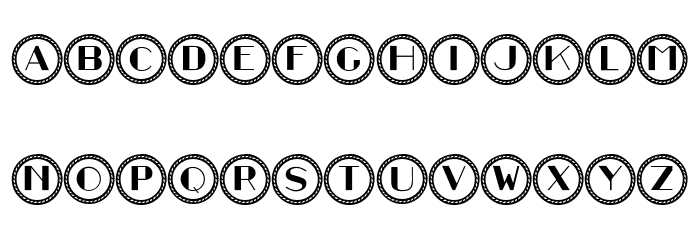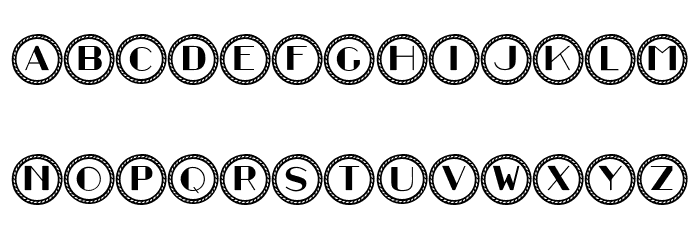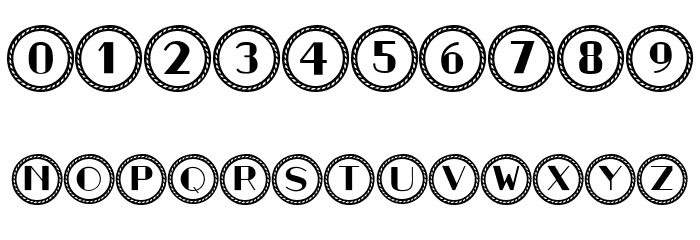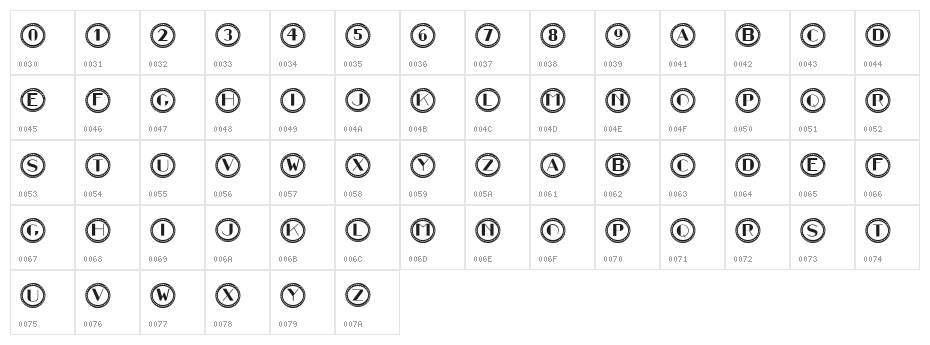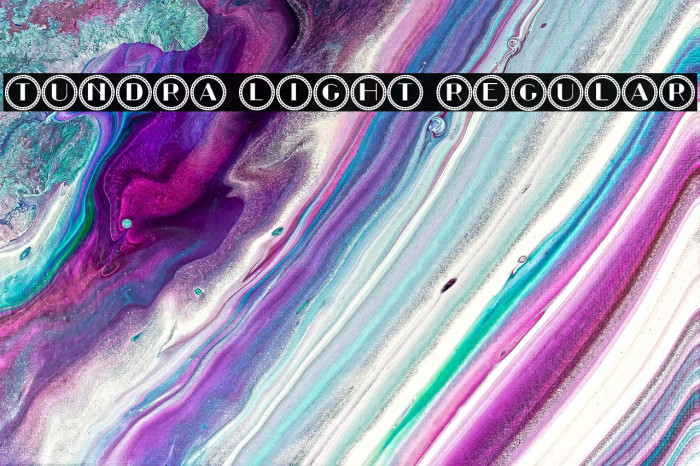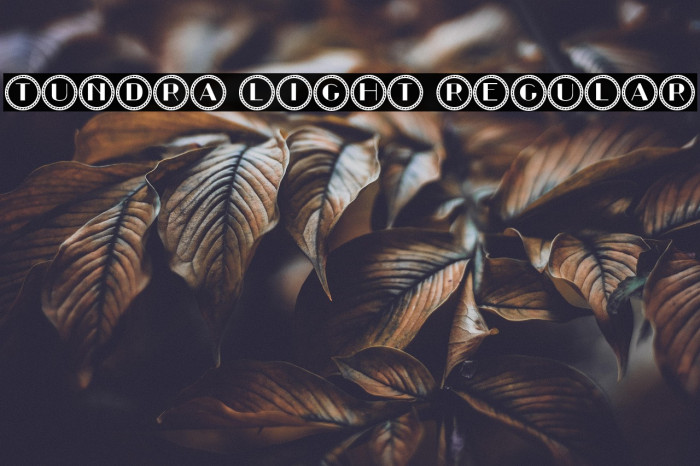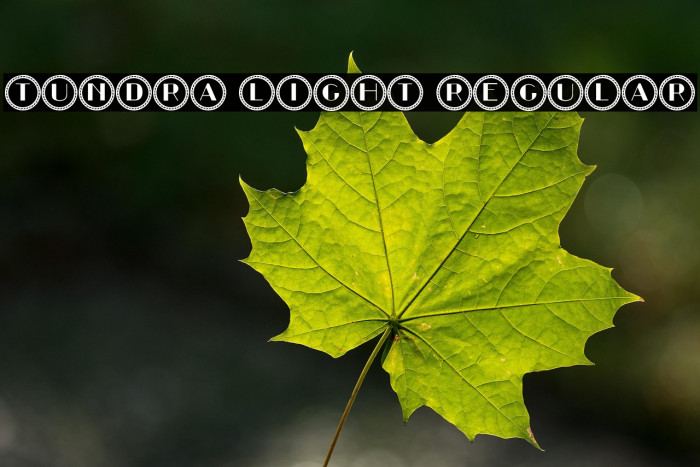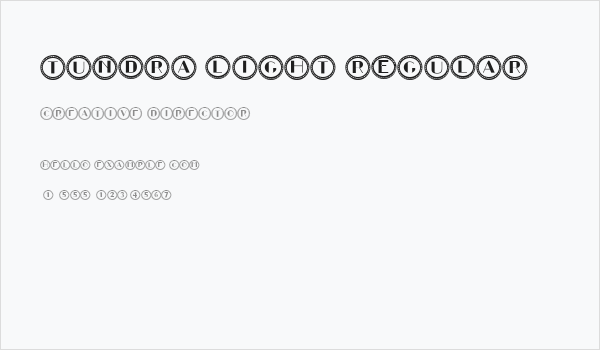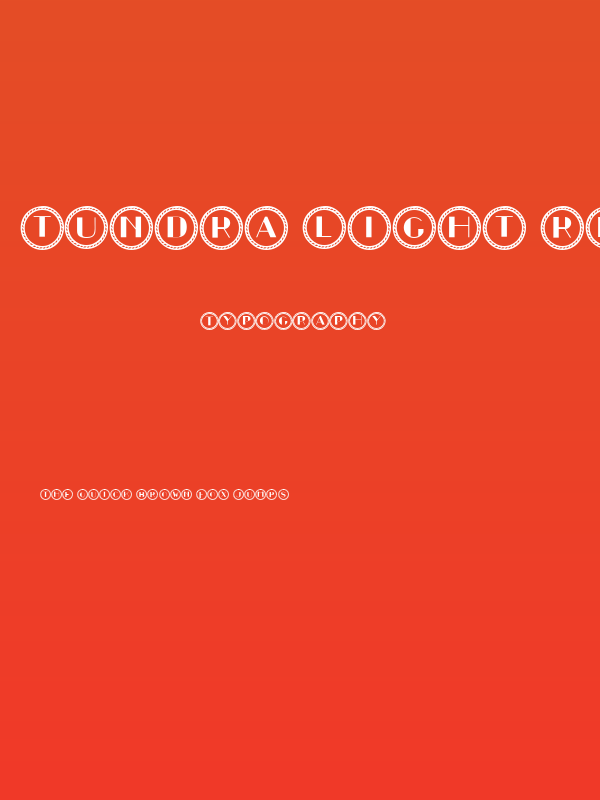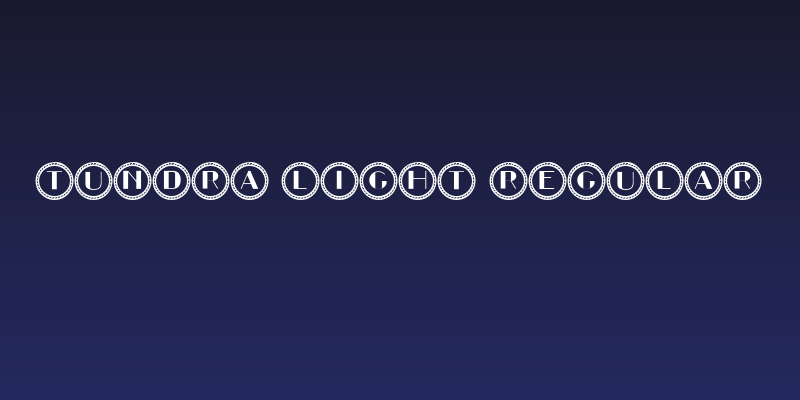
Tundra Light Regular Font
This font features a unique and decorative style with each character encased in a circular border. The letters are bold and clear, with a modern sans-serif design that stands out due to its high contrast and geometric shapes. The circular borders add a playful and eye-catching element, making it suitable for creative and artistic projects. The font maintains a consistent weight and width throughout, ensuring readability while adding a distinctive flair. Its design is both modern and decorative, making it versatile for various uses.
A decorative sans-serif font with bold letters encased in circular borders.
- Font: Tundra Light Regular
- Proposed Projects: Ideal for logos, posters, and branding materials where a unique and modern look is desired.
- Overall Style: Modern, Decorative